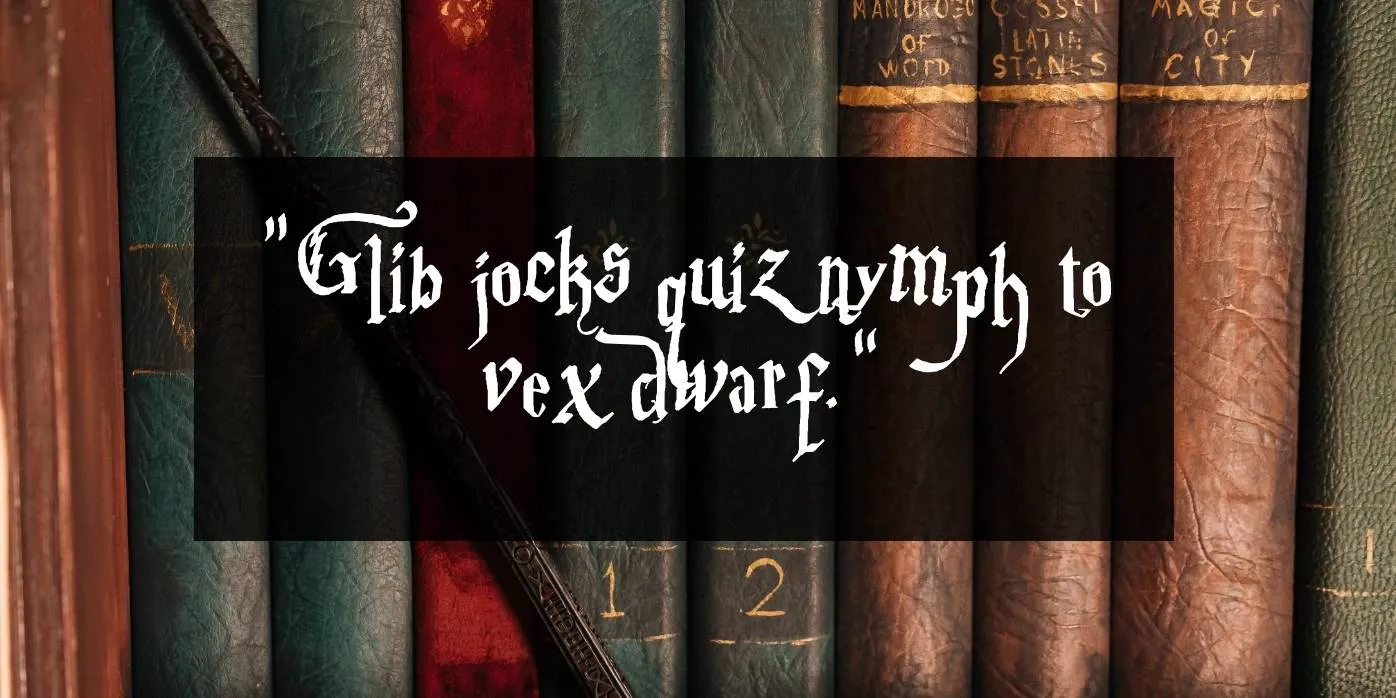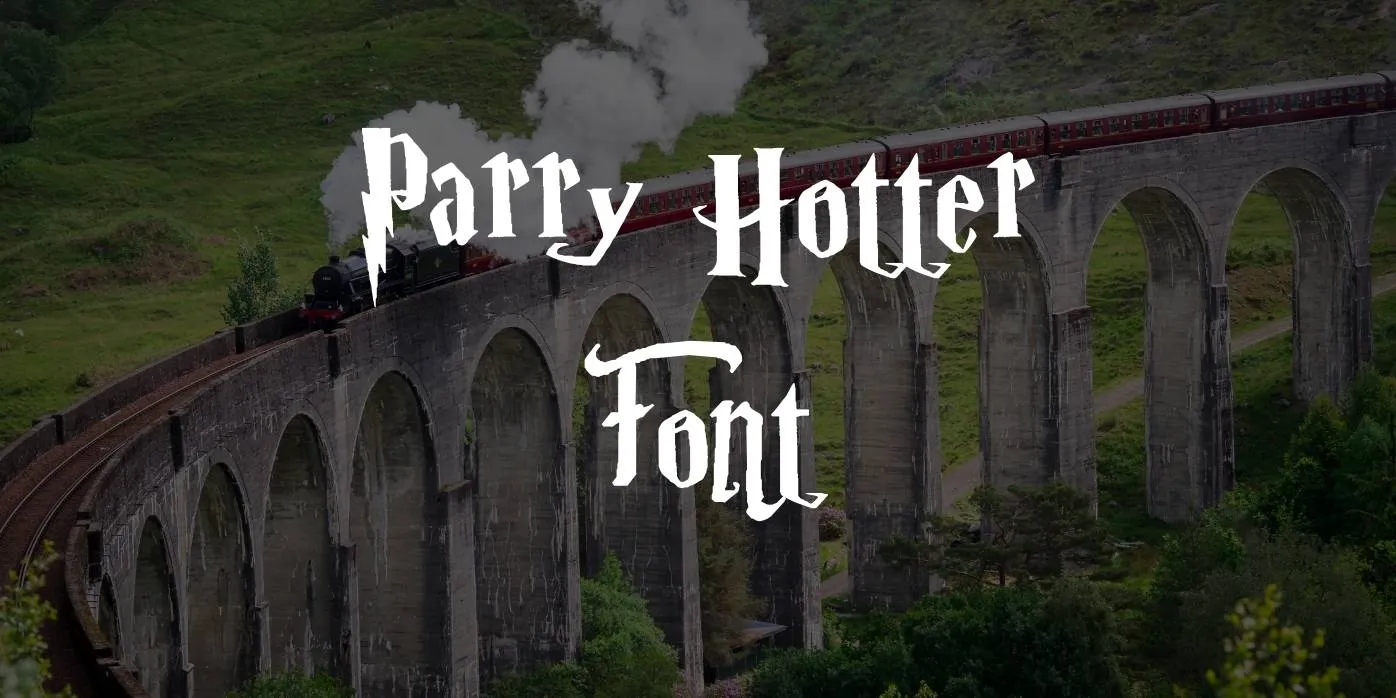
Parry Hotter Font
Parry Hotter Font belongs to the fancy font family. This typeface was developed by Anke-art. The designer has used a thick brush to create this font. This makes it perfect for display and digital purposes.
Parry Hotter Typeface is available in two styles regular and bold. The regular style includes upper- and lower-case letters, numbers, and punctuation marks. The bold style includes only uppercase letters and numbers. Its copy and paste function is best for many text designs.
Its similar pokemon font is best for various designs. This font can be used for both personal and commercial purposes. It’s perfect for headlines, posters, and titles. It has different attractive characters.
The wide space between its characters makes it easy to read from a distance. If you’re looking for funky and attention-grabbing Typeface, then Parry Hotter is suitable for your projects. You need to download it and use it in your projects.